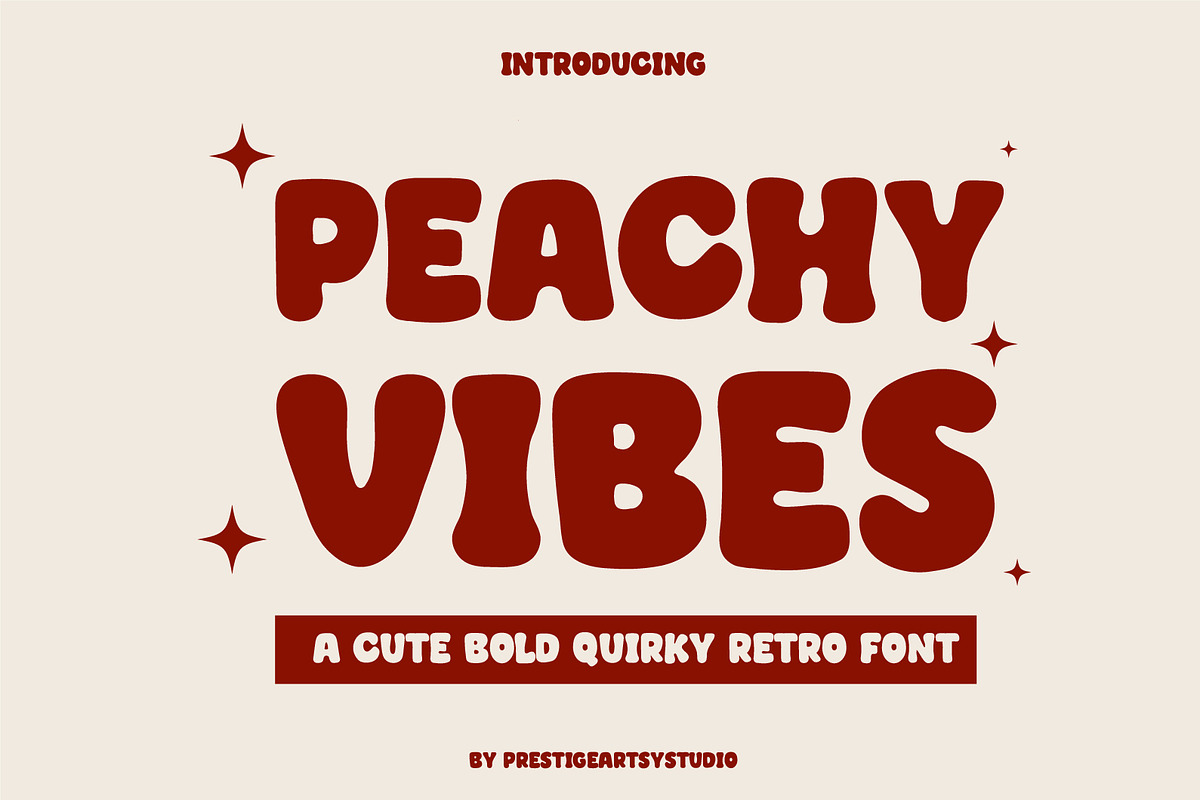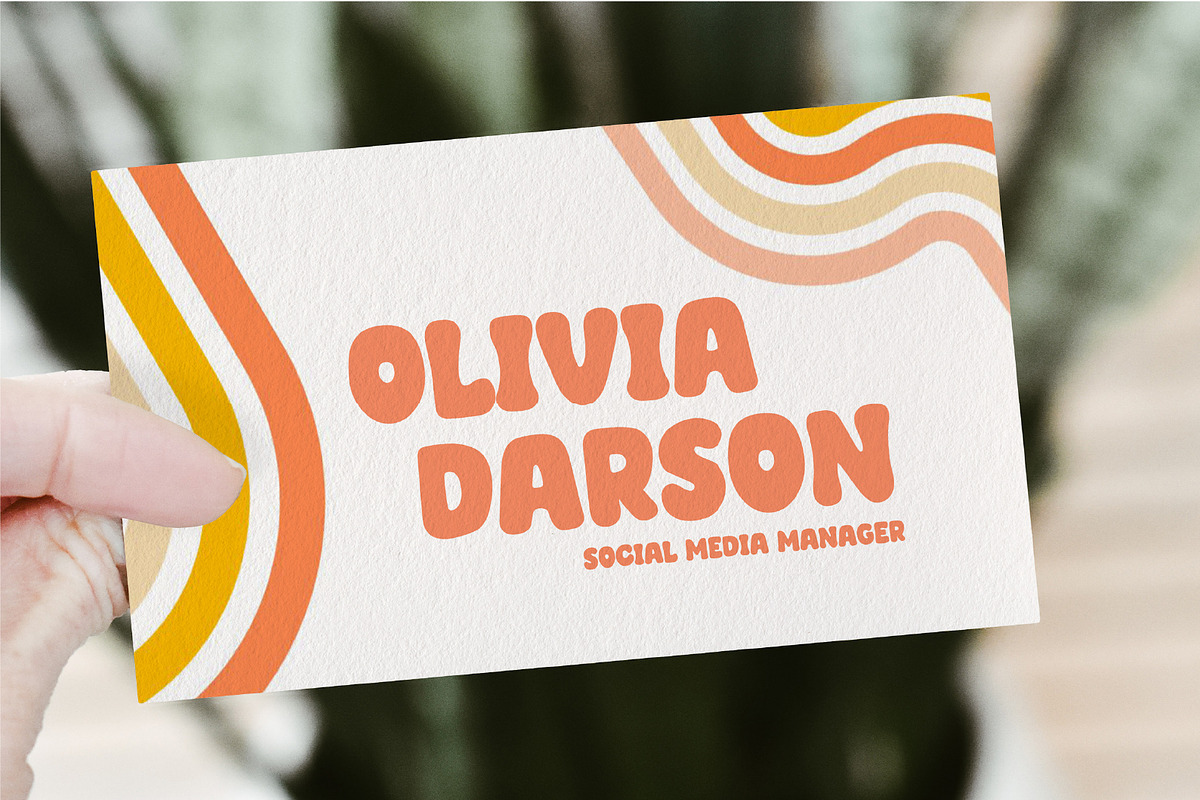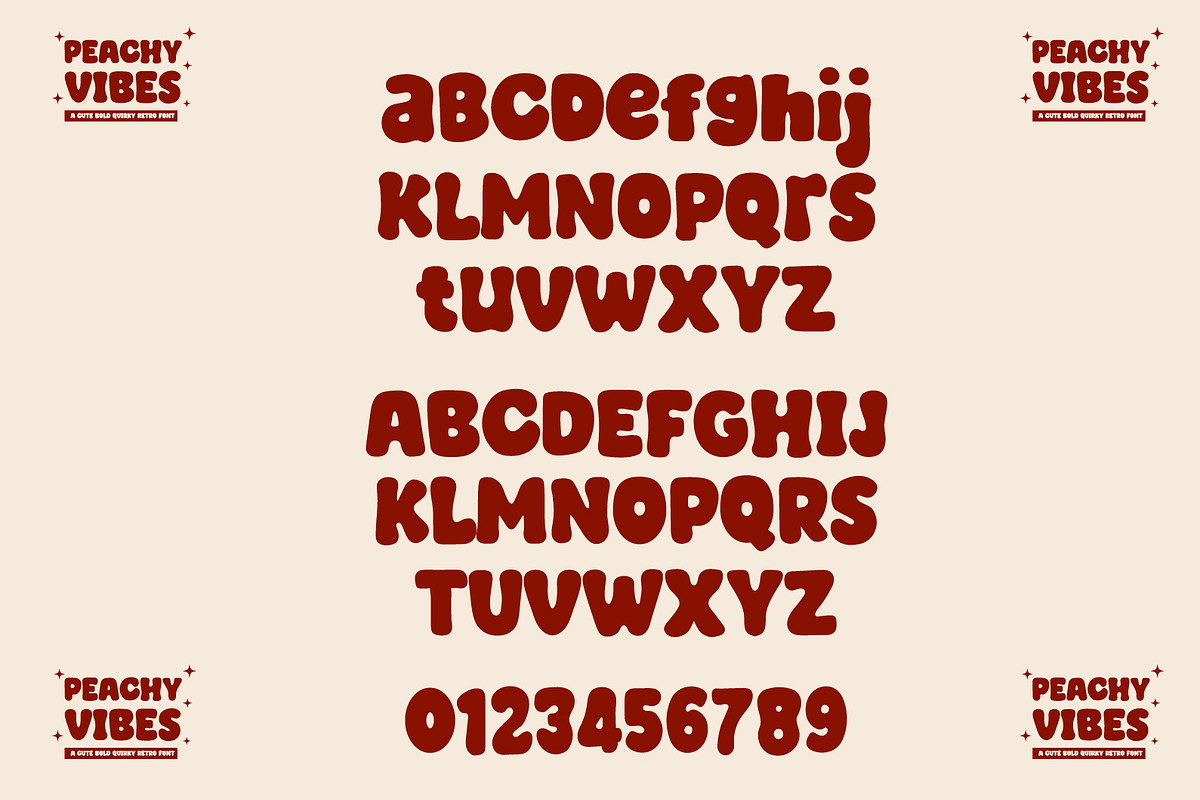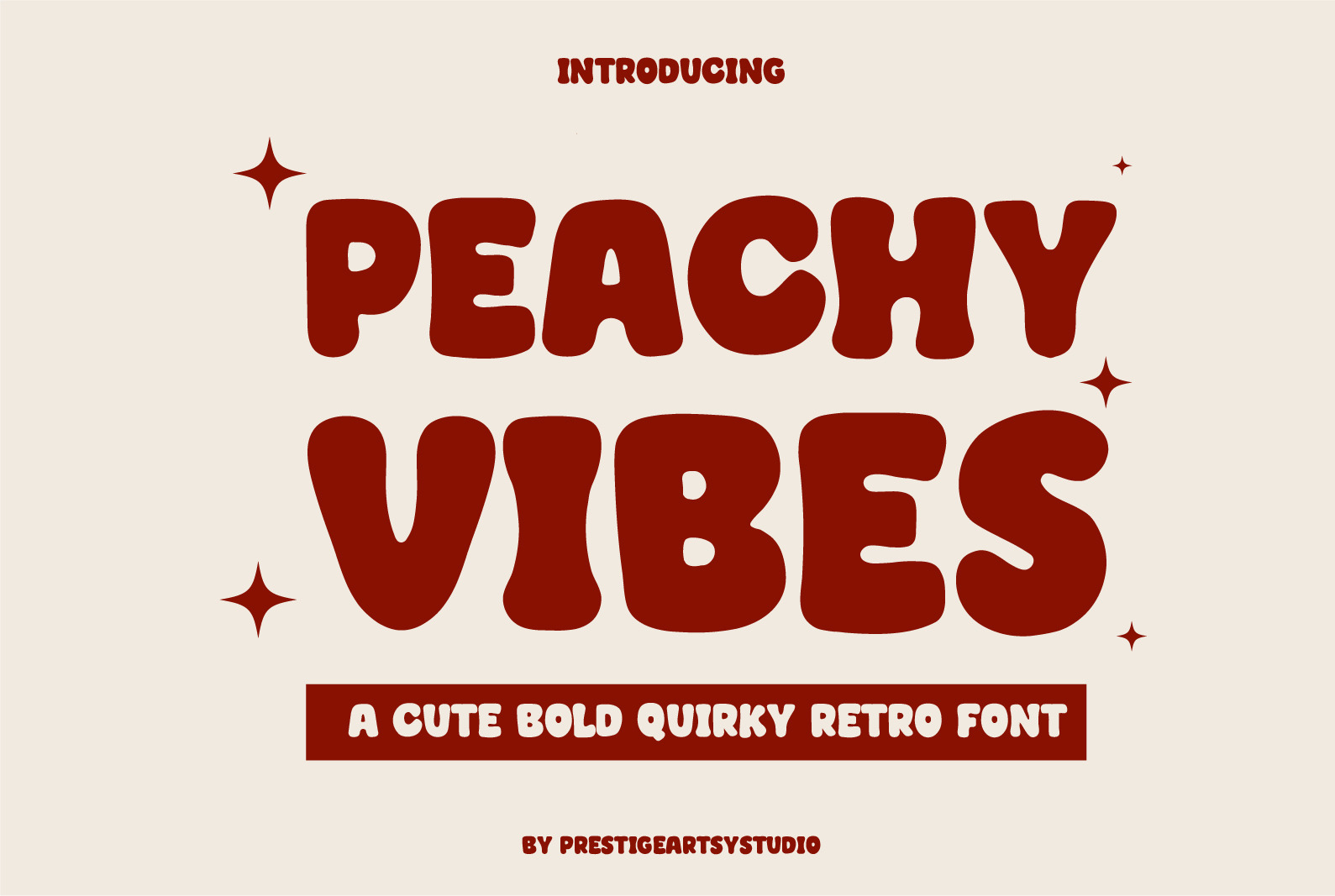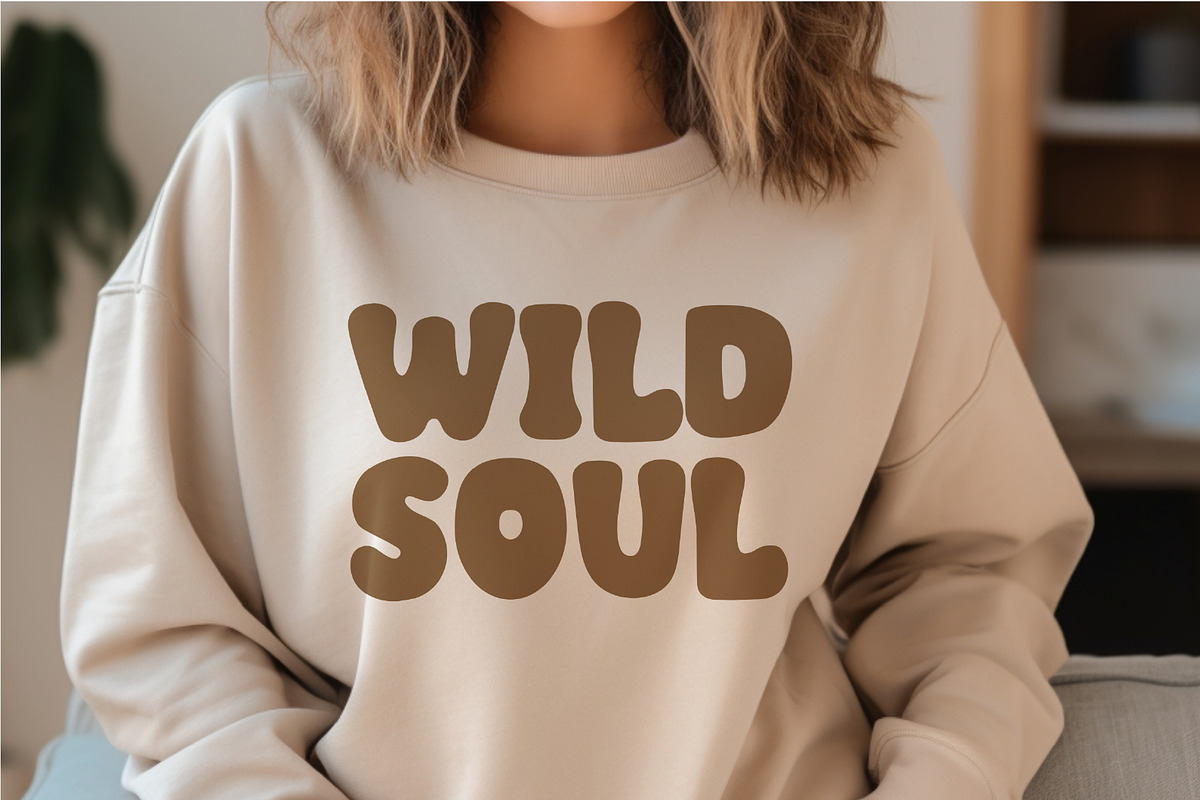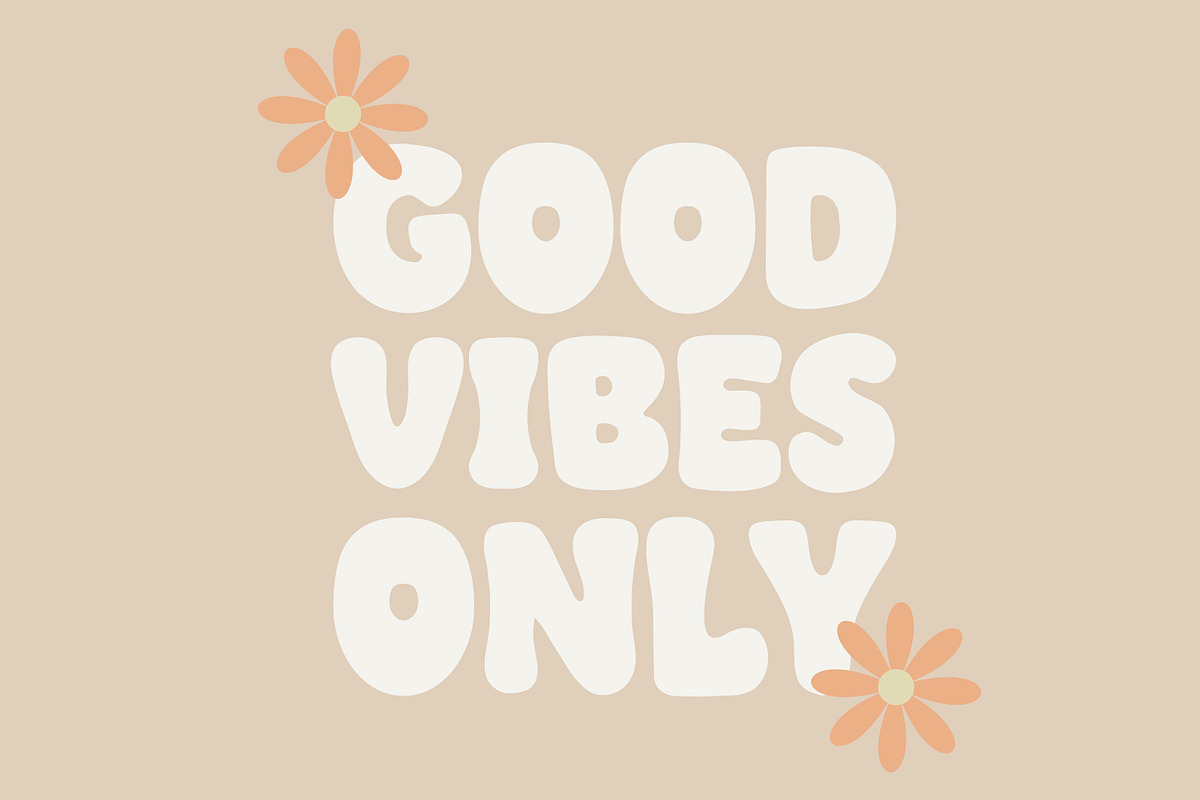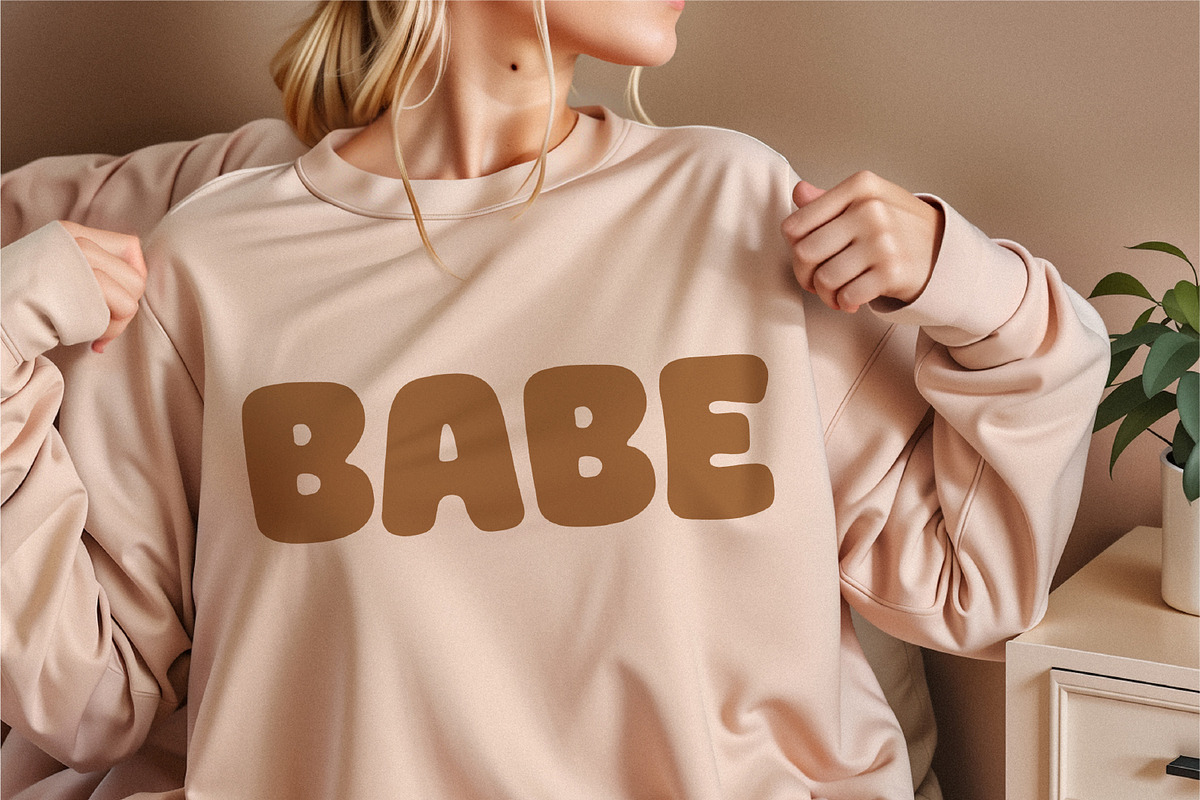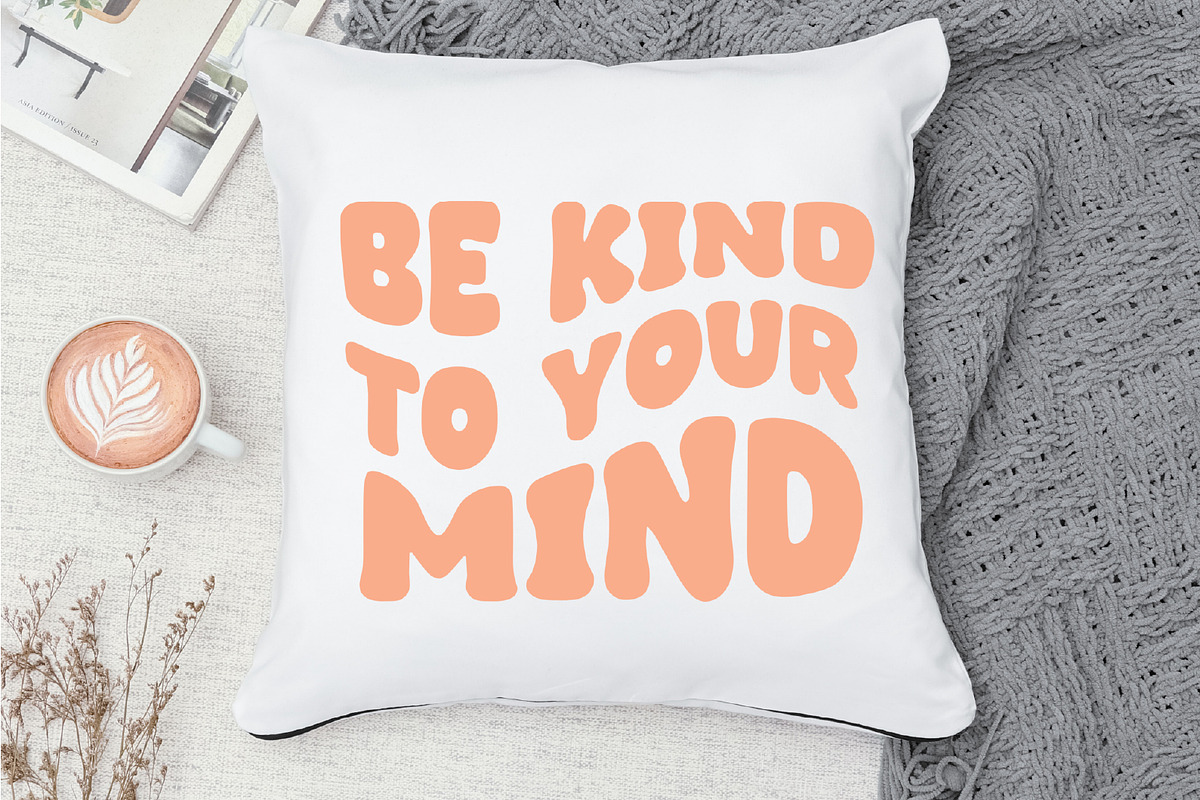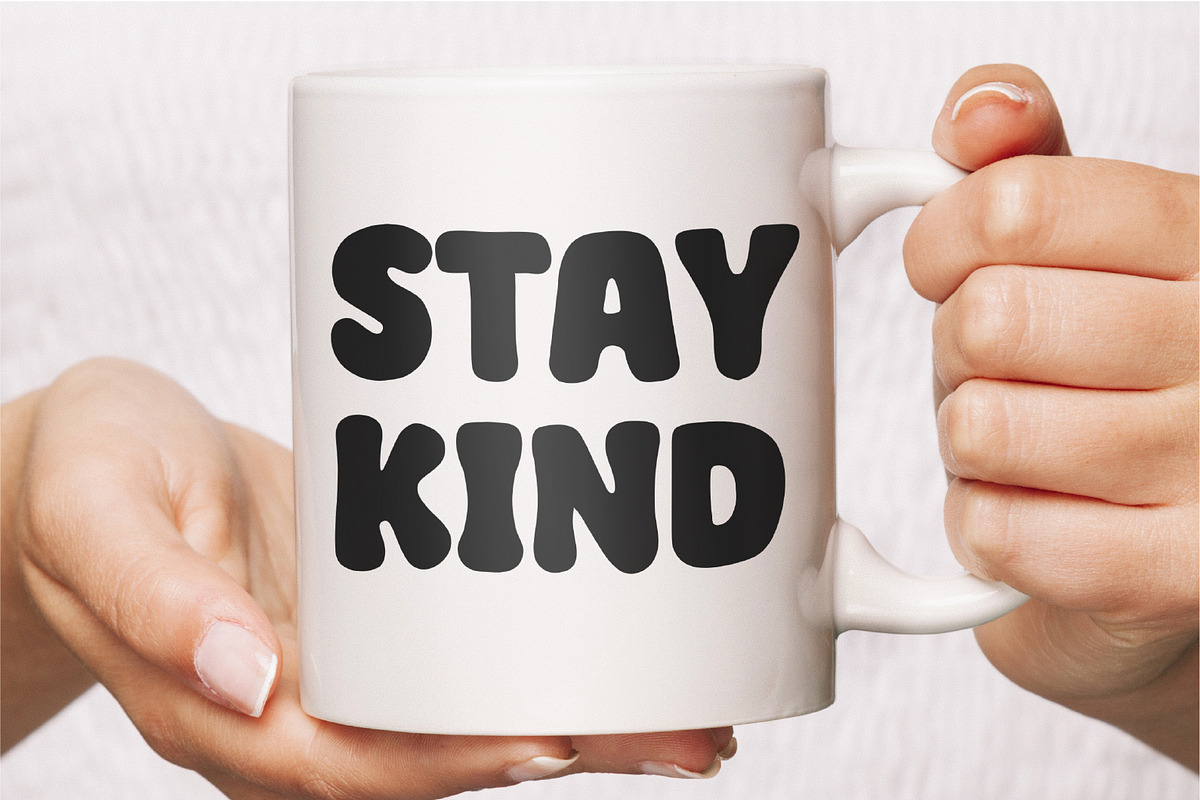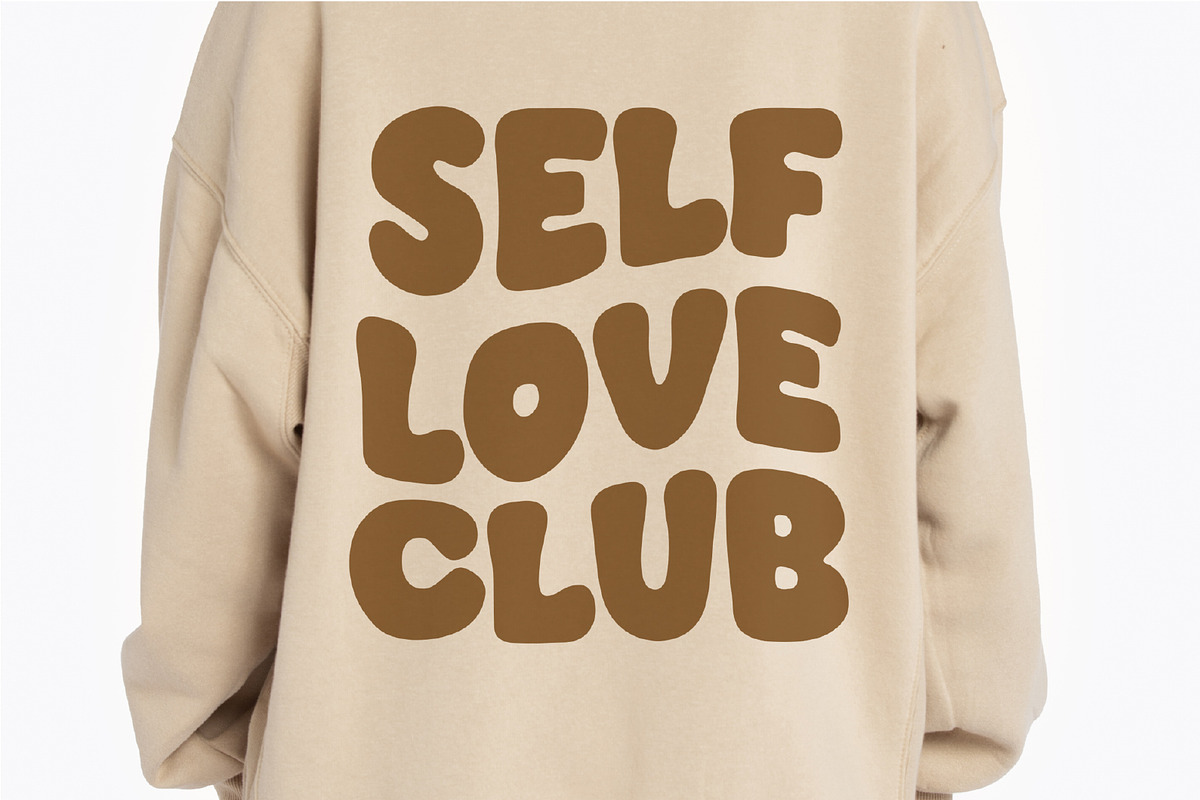
Peachy Vibes A Cute Retro Font
Introducing Peachy Vibes an eccentric and playful typeface that takes you on a journey back in time. With its boldly curved edges and distinct vintage charm, this quirky font will transport your designs to the retro era. Perfect for creating eye-catching headlines, logos, and posters, 'Peachy Vibes' injects a dose of nostalgia into your projects, while adding a modern twist.
Stand out from the crowd and embrace the playful vibes of the past with this unique font.